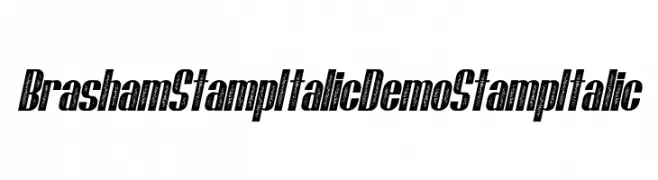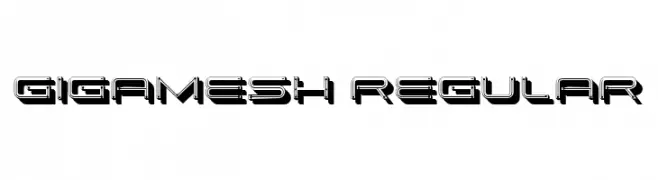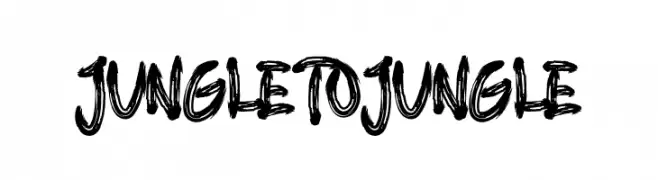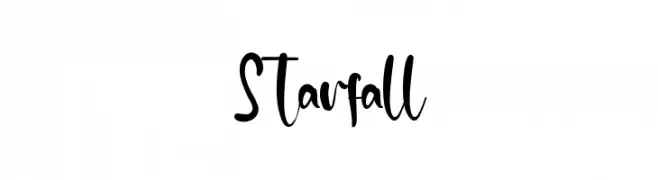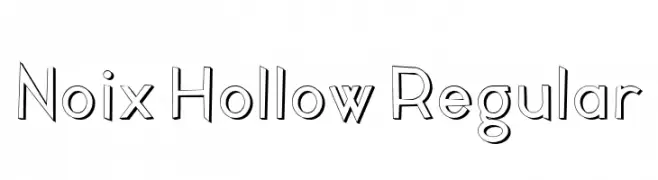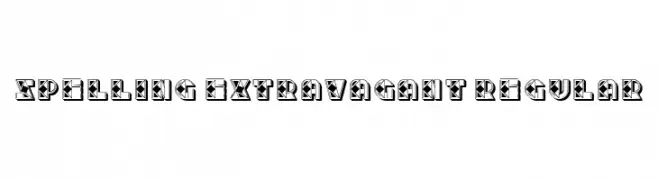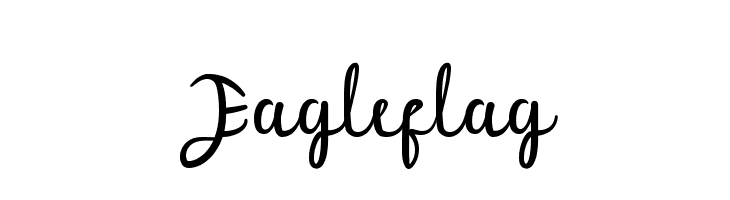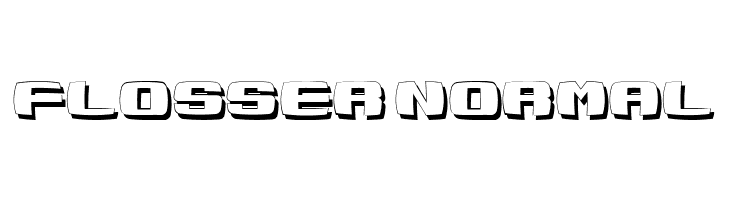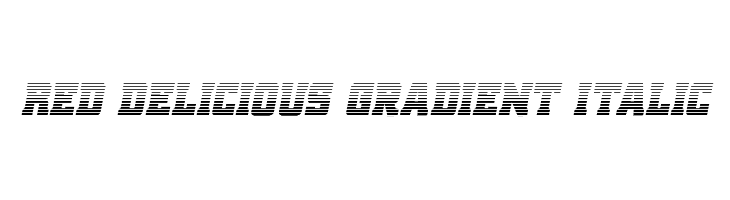
A playful, handwritten script font with a dynamic and friendly style.
A whimsical, handwritten font with elongated, flowing characters.
A futuristic, angular italic font with a sleek and dynamic design.
A bold, italicized font with a distressed, vintage texture.
A geometric, high-contrast font with sharp angles and a modern aesthetic.
A bold, futuristic font with geometric, three-dimensional letterforms.
A bold, brush-textured font with an adventurous and dynamic style.
A playful, hand-drawn script font with dynamic, flowing strokes.
A modern, hollow font with bold outlines and geometric shapes.
A bold, geometric font with intricate internal patterns and a three-dimensional outline.